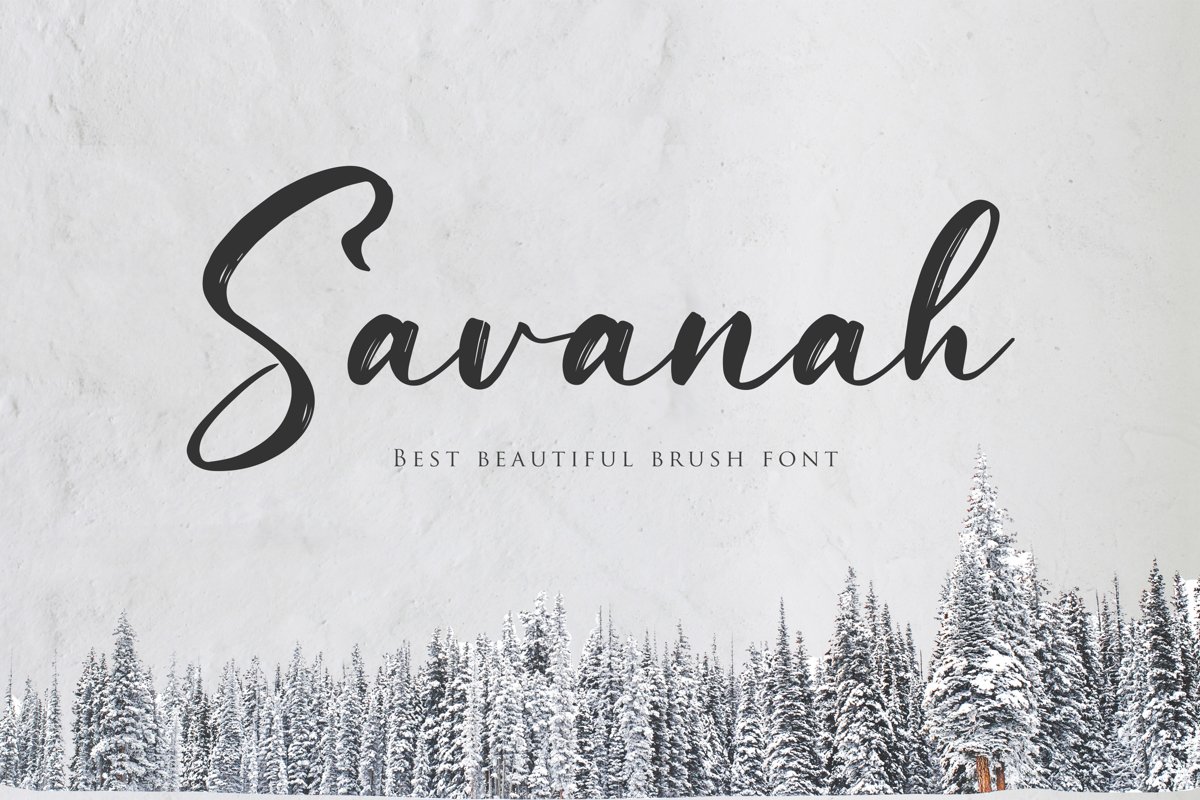
Savanah is perfectly suited to signature, logo, stationery, branding, website header, typography quotes, clothing, magazine, book cover, packaging design and more. A handwritten script font containing upper and lowercase characters, numerals, ligatures, and range of punctuation.
Savanah it has over 150 glyphs, is extremely smooth and is packed full of beautiful.
- Uppercase Glyph
- Lowercase Glyph
- Numeral Glyph
- Punctuation Glyph